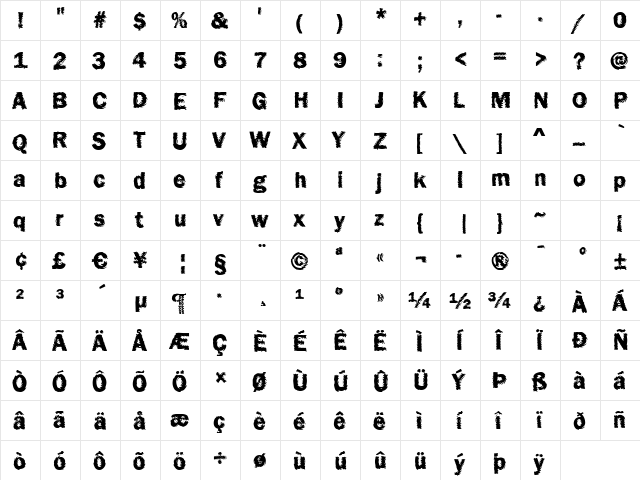
Funky21 Bold
Design Context for Funky21 Typeface
Funky21 trades formality for fun, with bouncy, characterful letterforms that bring warmth and energy to any project.
Font Pairing: Pairs well with a rounded or humanist sans for body copy, maintaining the friendly tone without relying on Funky21 to carry extended reading.
Pro Tip: Avoid using Funky21 for long passages of text — it works best for headlines, labels, and short calls to action.